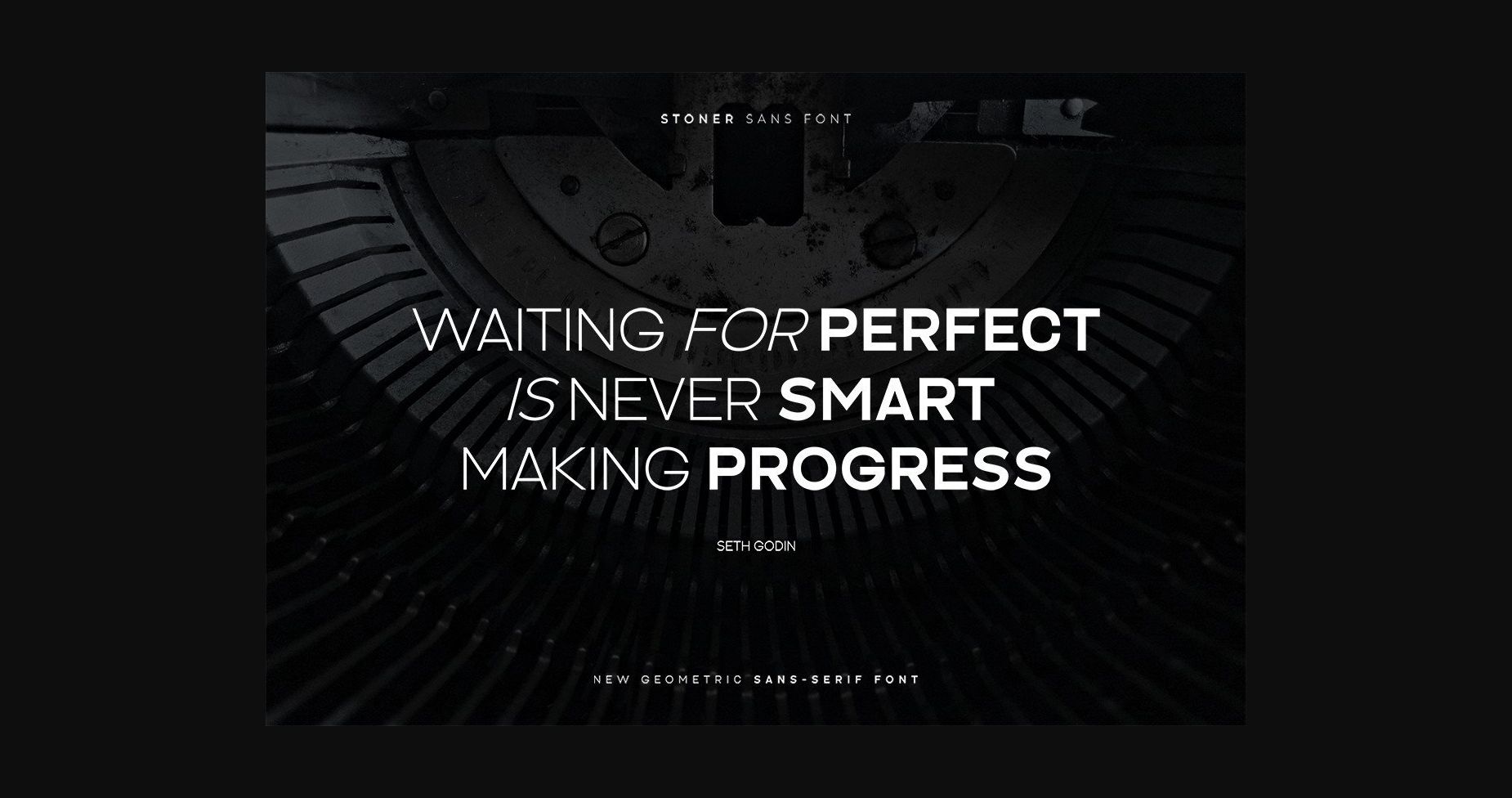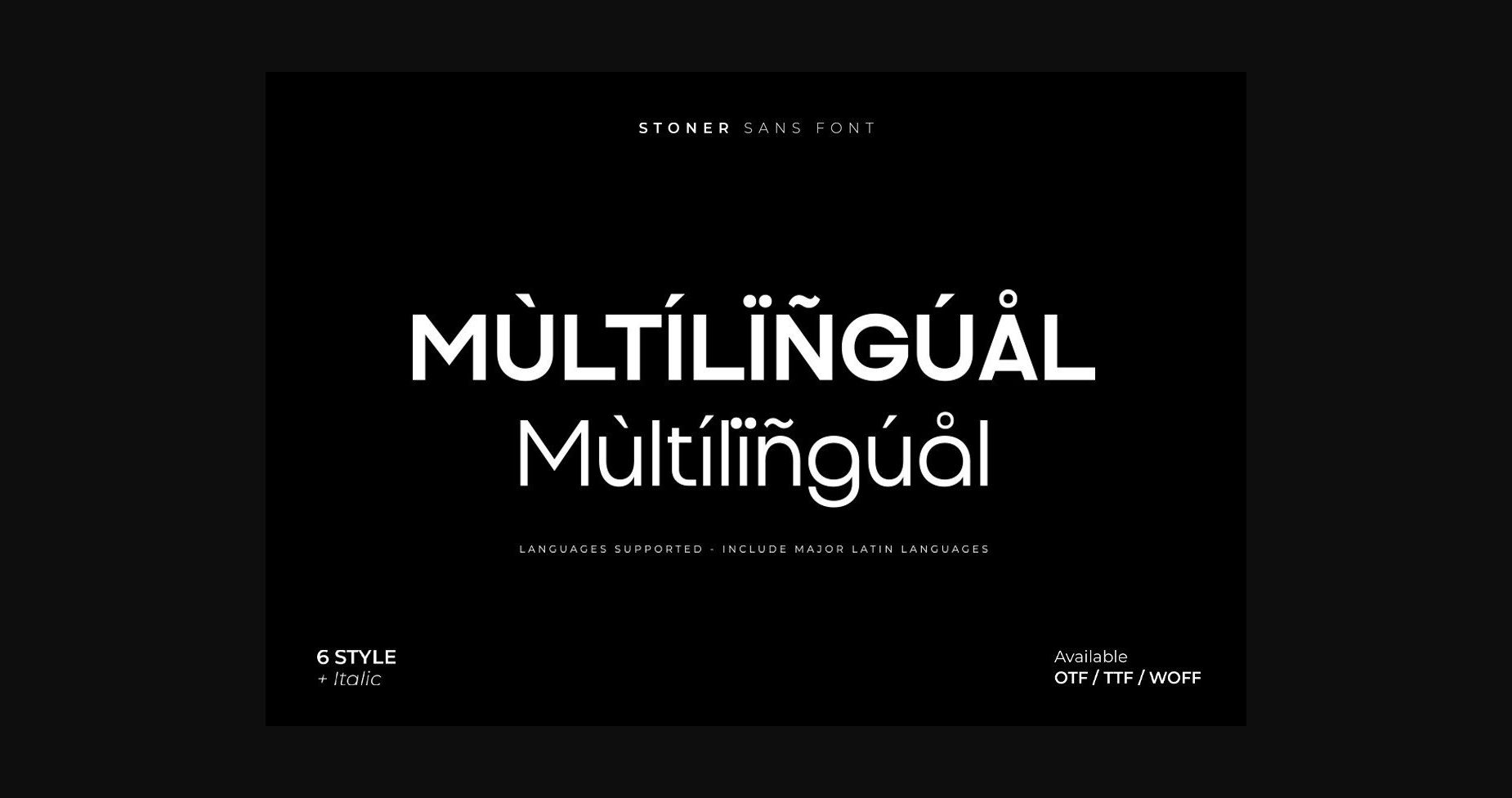
About Stoner Font
Stoner is a modern and fresh sans serif font. No matter the topic, this font will be an incredible asset to your fonts’ library, as it has the potential to elevate any creation.